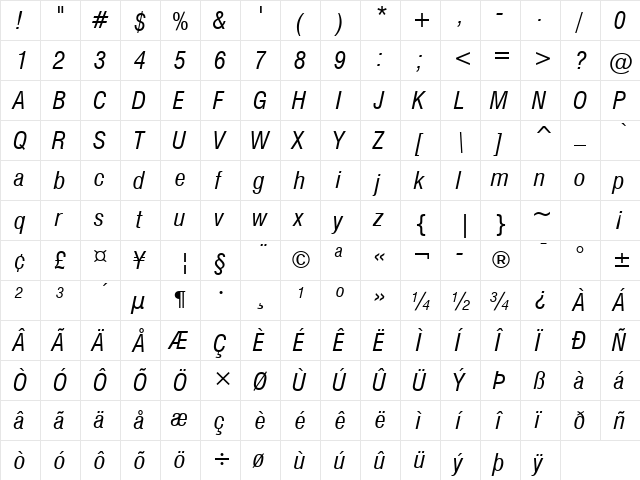
Swis721 Cn BT Italic
Design Context for Swis721 Cn BT Typeface
Swis721 Cn BT takes a measured approach to typography — its balanced proportions and neutral character make it a reliable workhorse for both digital and print work. The slanted form adds forward momentum and visual energy.
Pro Tip: Use Swis721 Cn BT for emphasis, pull quotes, and subheadings where its slanted energy can add rhythm to the layout.